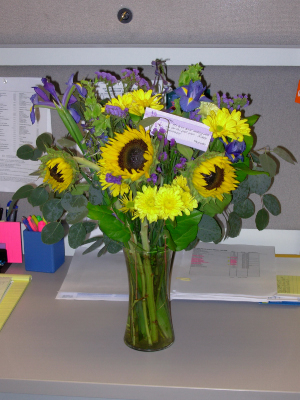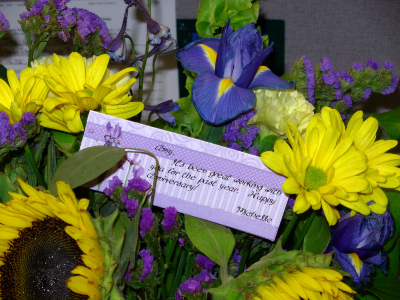
JILLUSTRATION'S
GARDEN VARIETY BUNDLE |
The transparent format eliminates unwanted white backgrounds
around alphabets and Journaling Delights. And with the
new Creative Delights Companion software, you can enjoy
the transparent files to their full potential. I’ve
had a wonderful time experimenting and creating, as I
hope you have too.
Creative Corner: Appreciation Card |
Flowers can brighten
anyone’s day. When I wanted to thank an employee
for a great first year and add a personal touch to the
arrangement, I passed on the cards the floral shops give
out and instead made my own card, with a matching design
and personal message.
It took me just minutes to select a design (the Journaling
Delights set Iris was perfect!), add the text using the
font LD
Easy Going Script, print and trim a personal card.
The flowers and card waiting at her desk when she arrived
at work let her know how much I appreciate having her on
our team.
Jillustration's Garden Variety Bundle |
Whether you prefer to dig
right in and make things grow, or sit back and watch the
garden develop, the new Garden
Variety Bundle from Jillustration
has something to make your gardening photos complete. Jillustration’s
Bubbles Scrap Pack |
This new scrap pack is bubbling over with fun designs,
perfect for summer playtime, bath time and more. We’ve
taken bubbly favorites, created matching alphabets and
Journaling Delights sets, and paired each design with a
complementary font.
New Pockets, Tags and Digital Tags |
Coordinating pockets and tags for Jillustration’s
Garden Variety Bundle are available as downloadable
Special Alphabet Release |
The American Red, White and Blue are standing tall in
this new alphabet, a special request from the mother of
a child in the military.
Alphabet Contest Winners |
Three contest winners mean three new alphabet designs
- inspired by our customers! Congratulations to Sandra
Malloy (Dockside),
Valerie Sanchez (Slap
Shot) and Jan Connair (Marching
Band) for
submitting these winning design ideas.